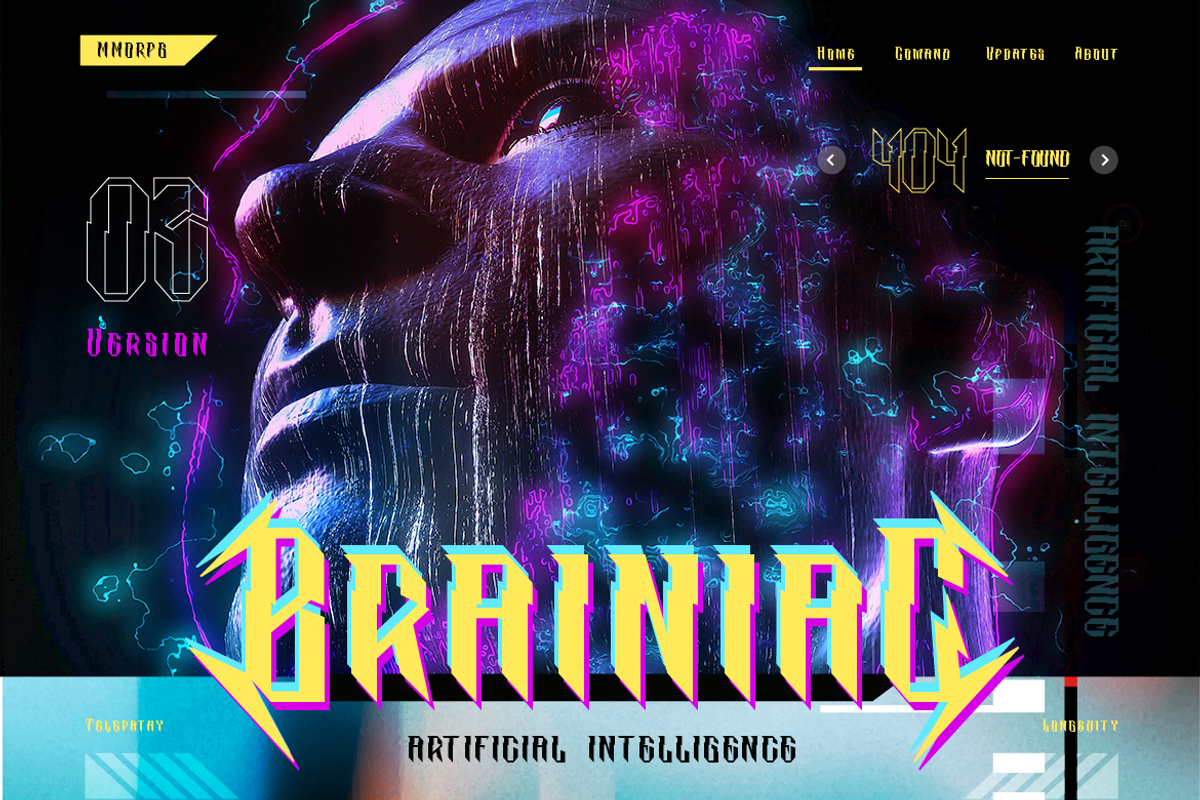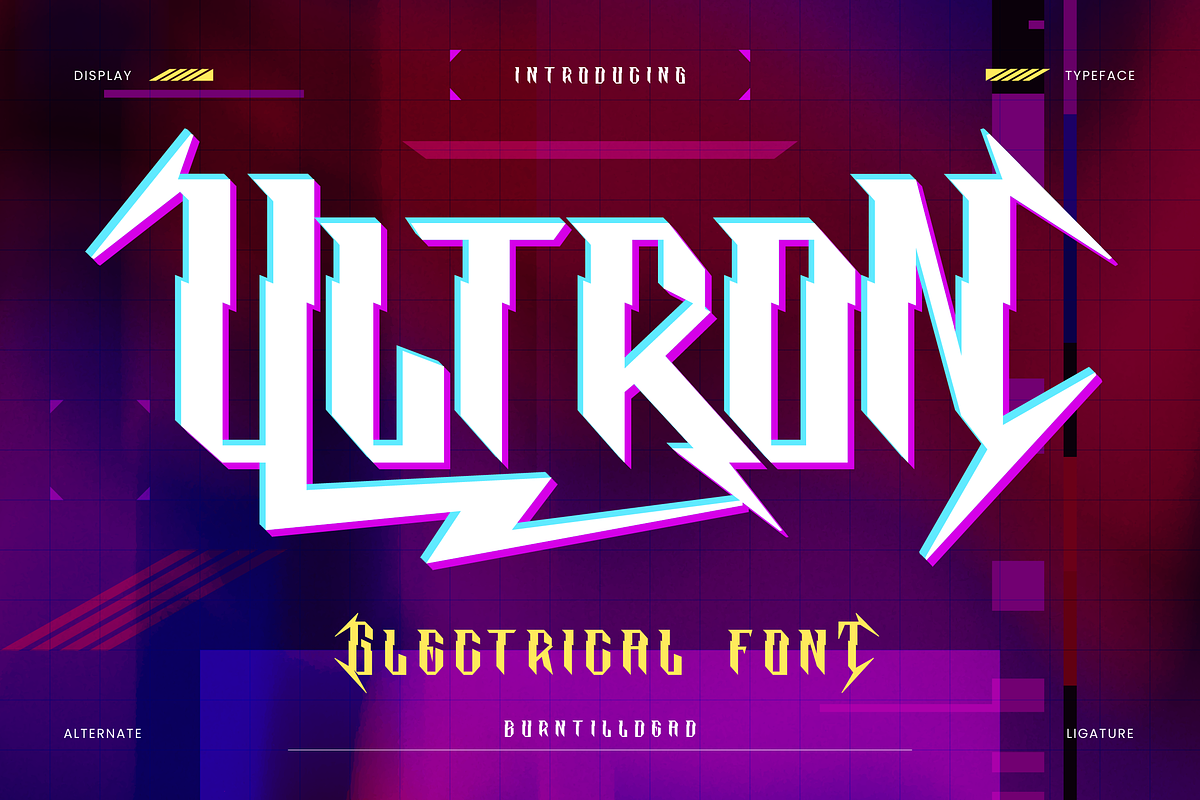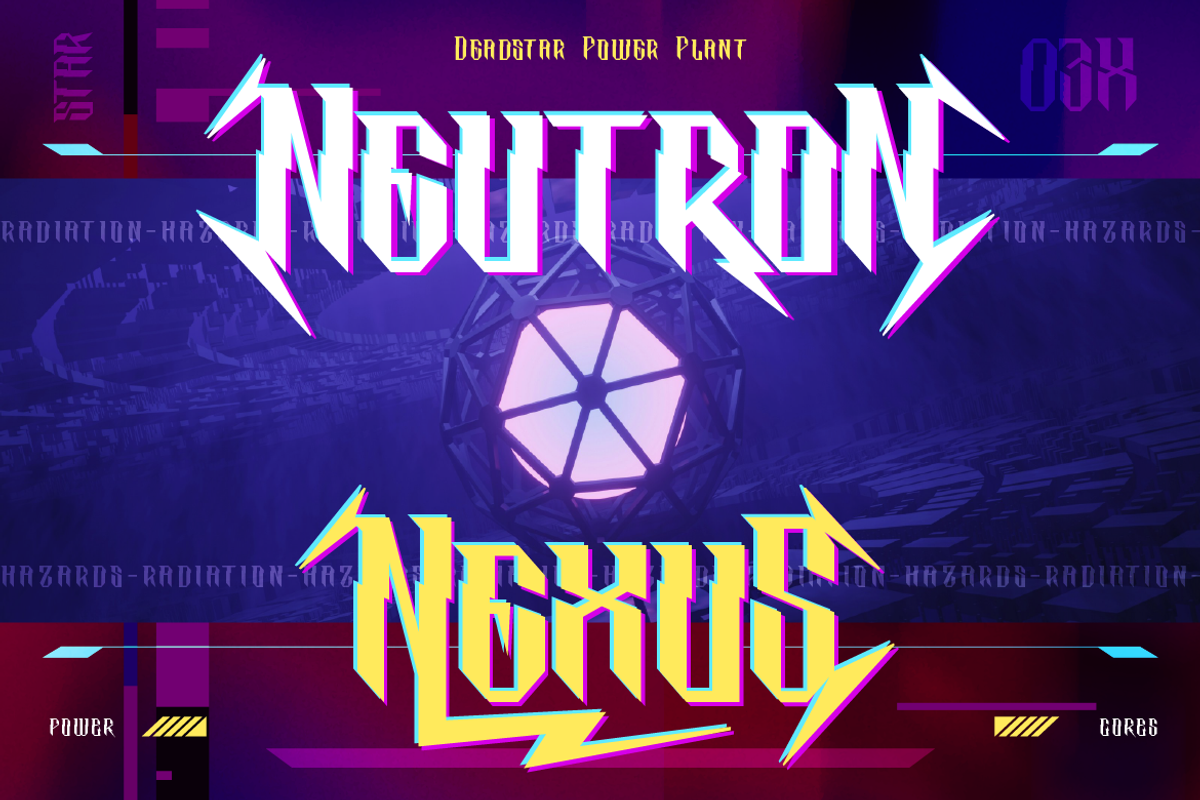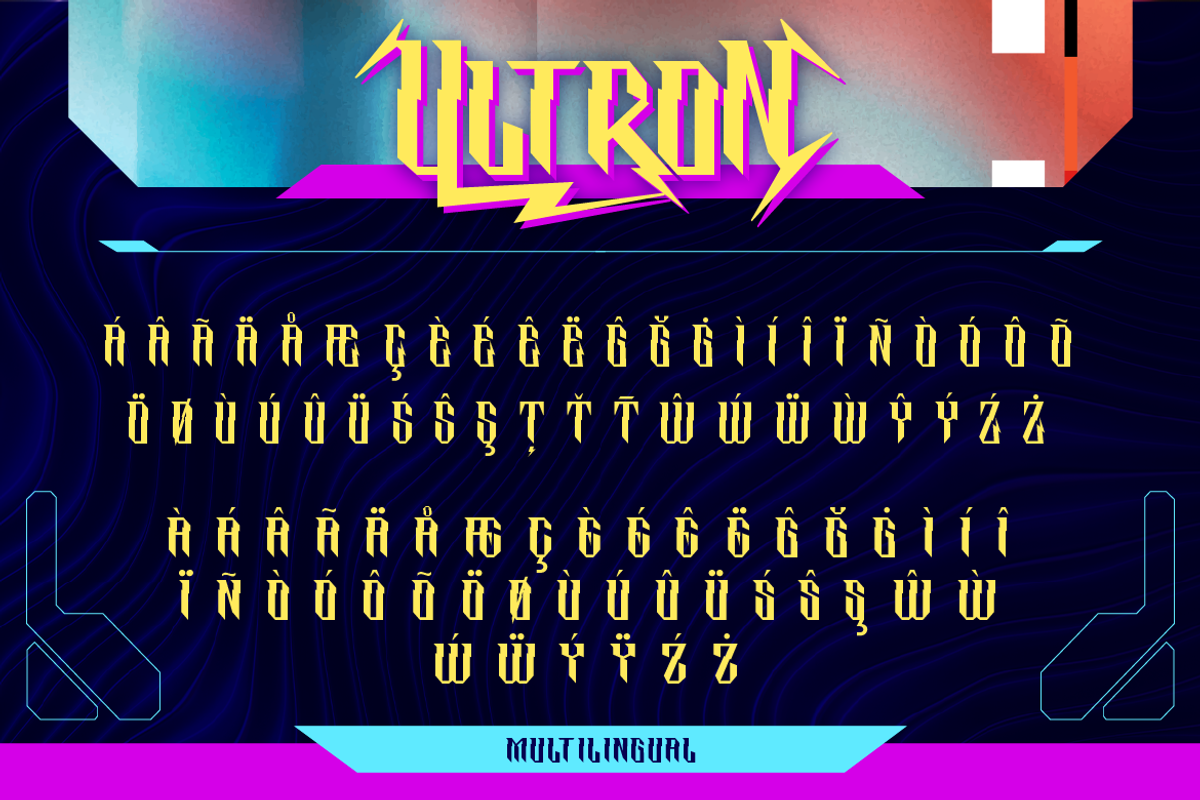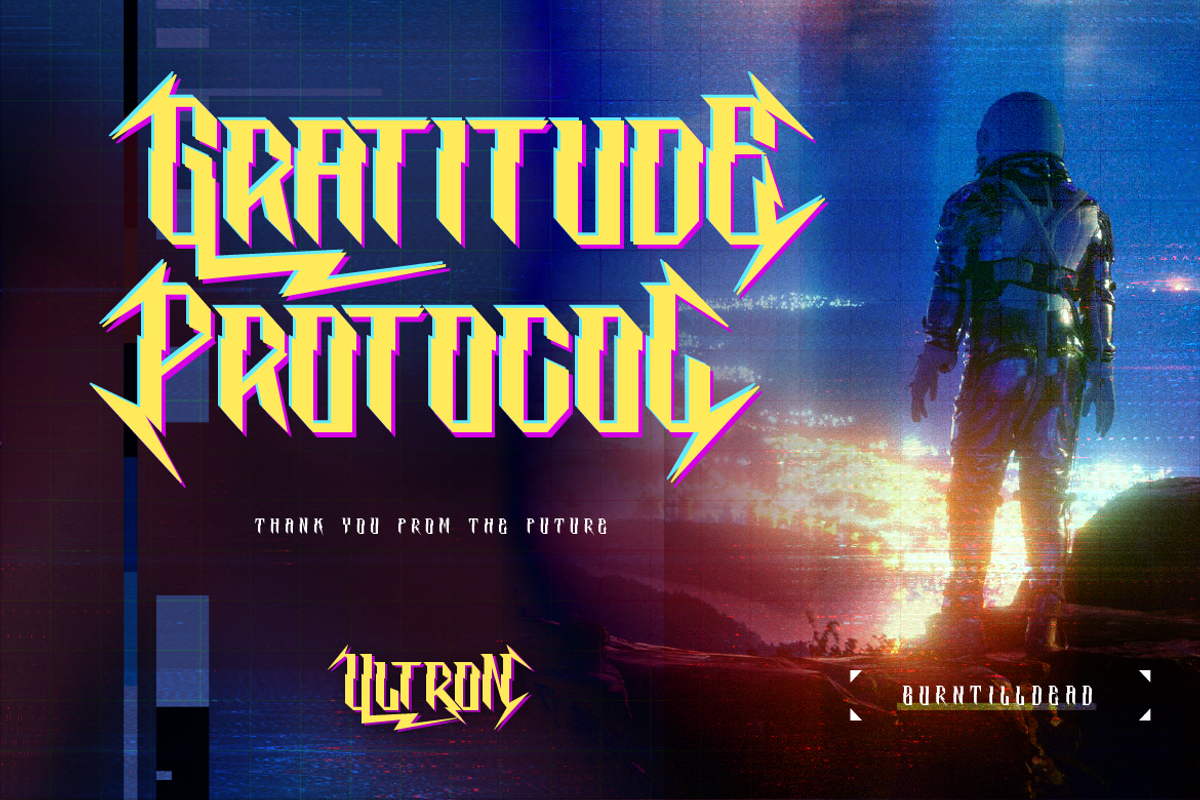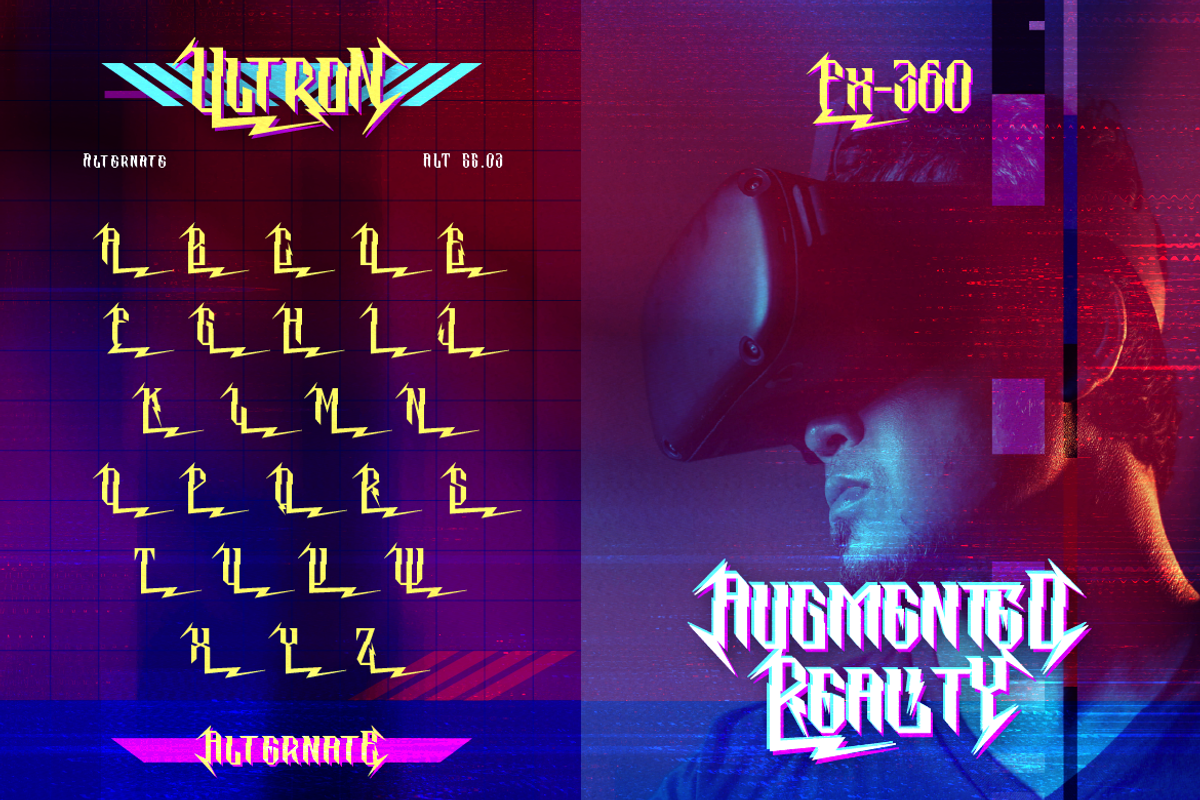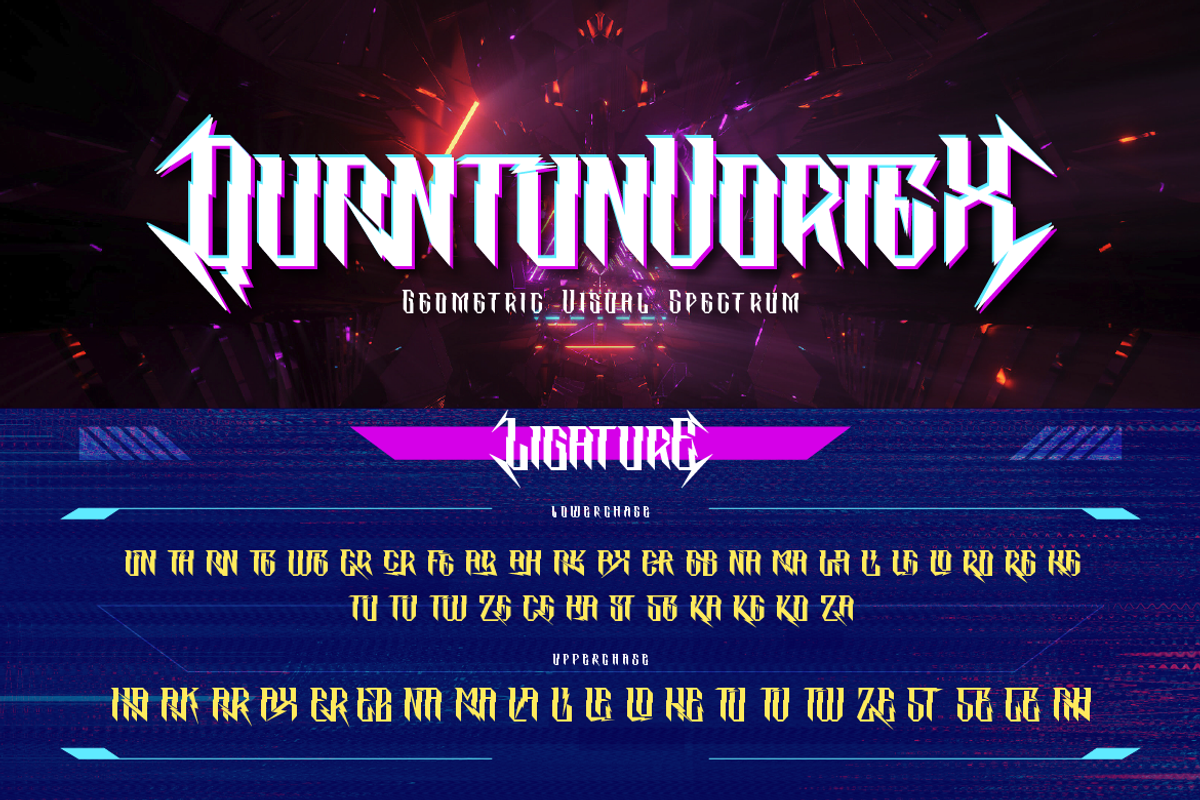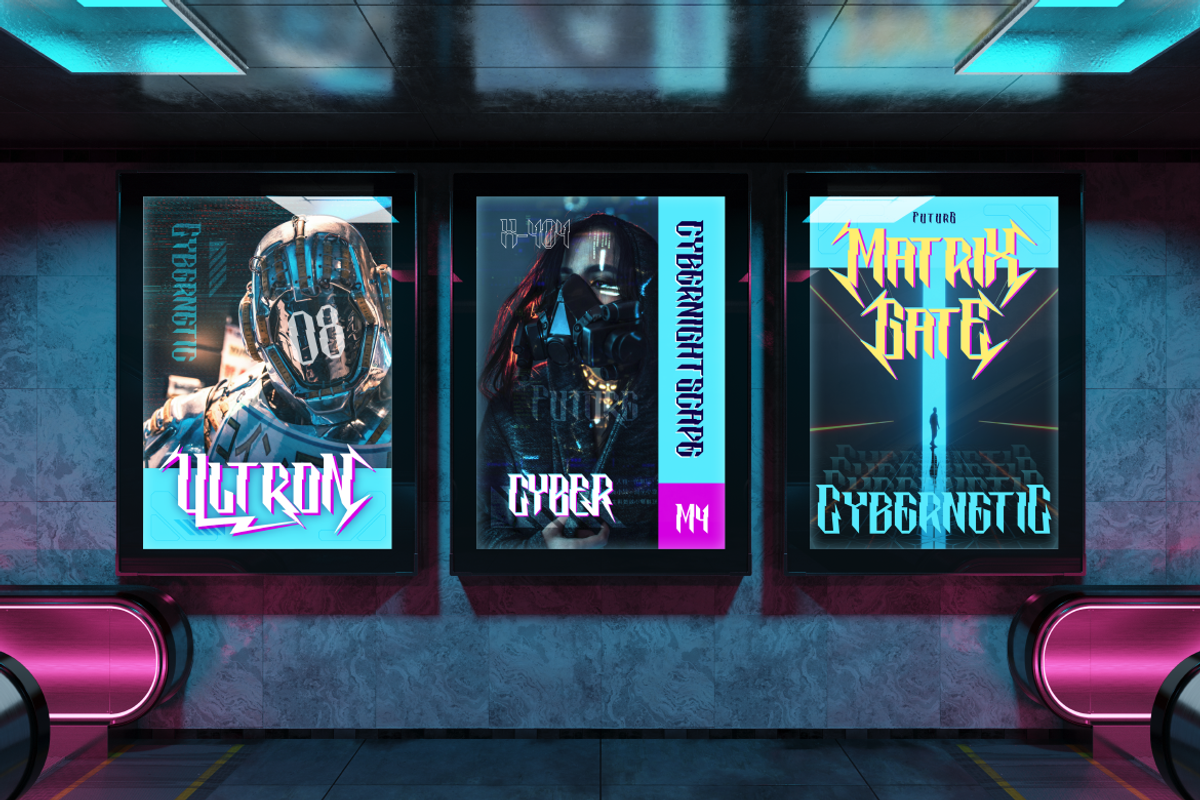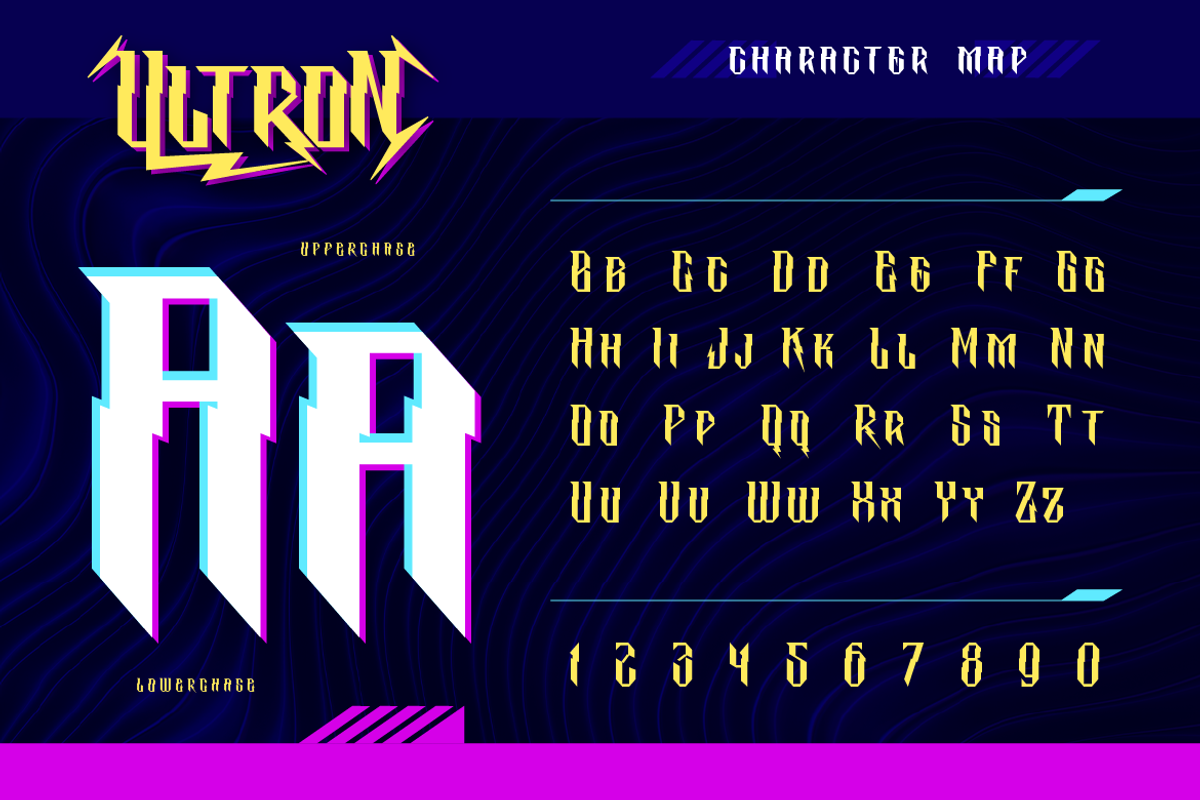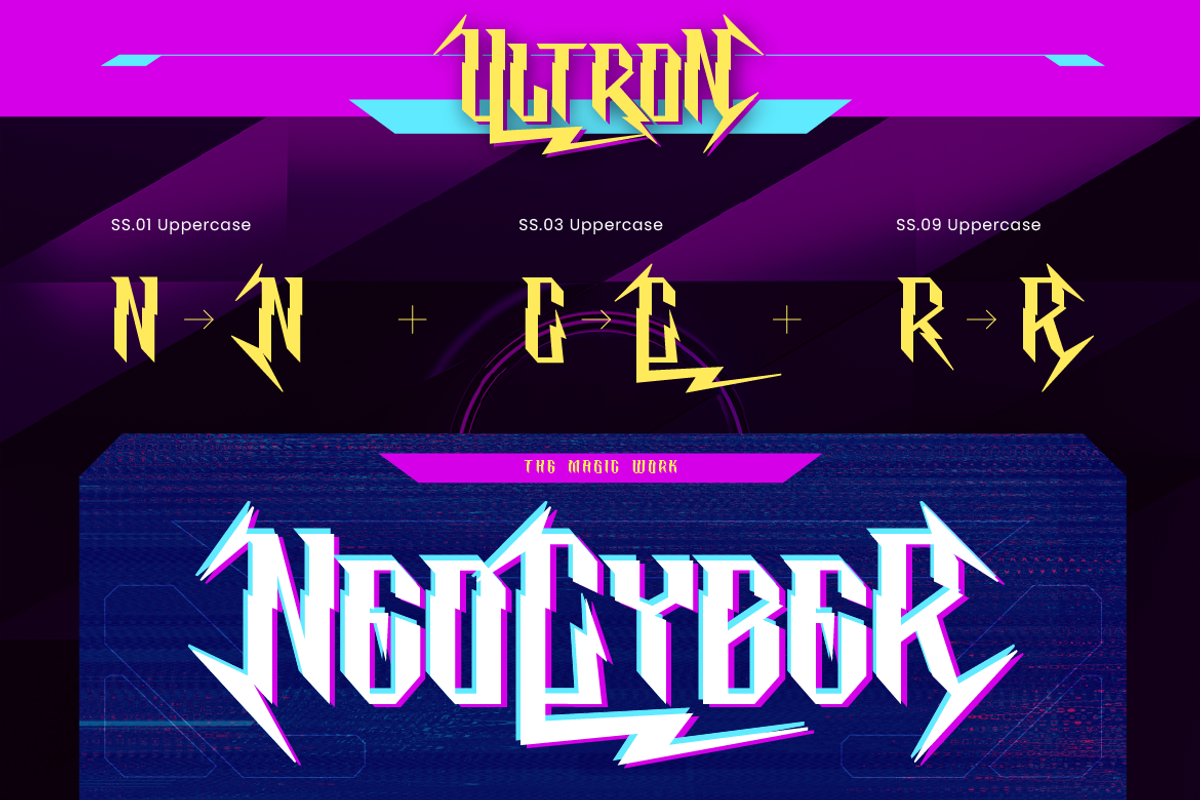
Ultron
Bring the electric element with Ultron. Ultron is a striking typeface inspired by the beauty of electric shock. Each letter crackles with energy, offering a dynamic, uniqueness and spark the attention to any design project. This font perfectly choice for design project that need lightning element such as headlines, logos, posters, video games, animation, book cover and more.